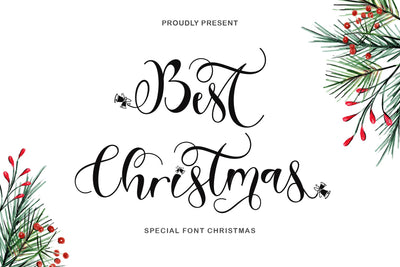
Best Christmas
"Best Christmas" is a script font with Christmas bells embellished on the letters. This font is very beautiful and pretty, so it is suitable for Christmas moments, Christmas invitations, and others related to the Christmas atmosphere. Equipped with main letters, uppercase letters, lowercase letters, alternative letters, swash, titling, numerals, punctuations, multilingual support.